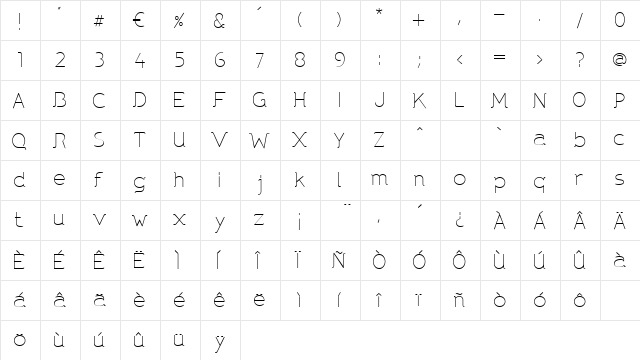
DNNR Medium
Design Context for DNNR Typeface
DNNR is a composed and adaptable typeface that performs quietly and consistently across a wide range of design contexts.